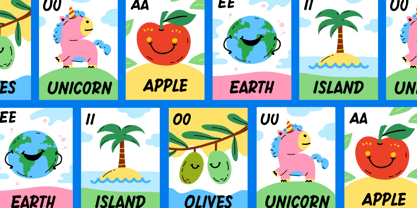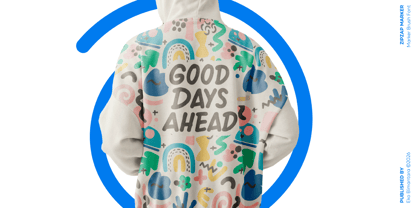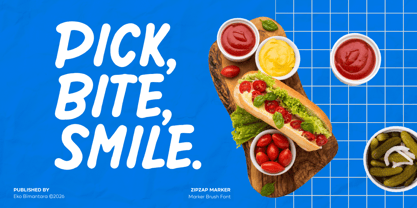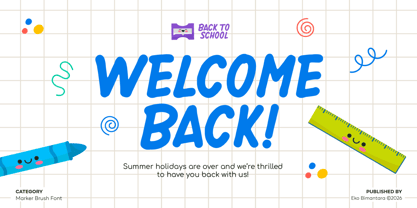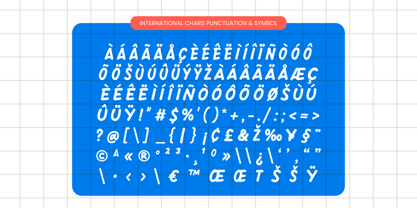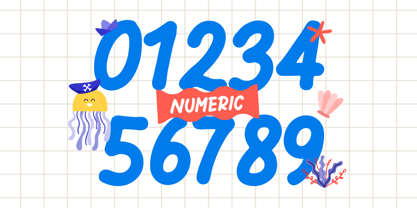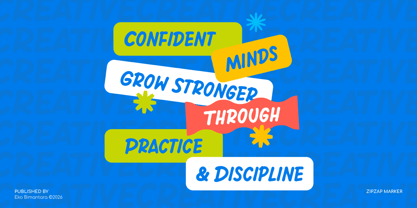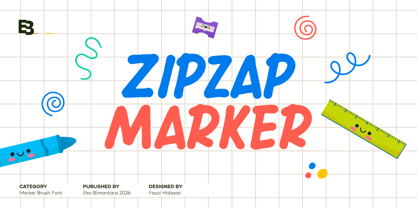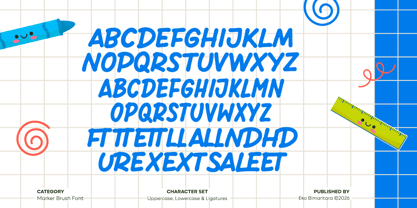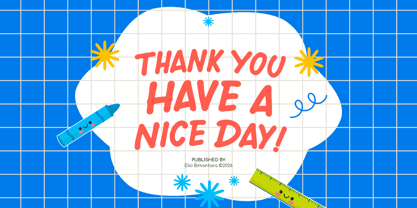
Zipzap Marker
by Eko Bimantara
The Zipzap Marker Font Family was designed by Eko Bimantara, Fauzi HIdayat and published by Eko Bimantara. Zipzap Marker contains 1 styles. More about this family
ZipZap Marker is a playful brush-style display typeface that captures the energetic spirit of hand-drawn marker lettering. With its bold strokes, slightly irregular edges, and playful rhythm, it conveys a sense of spontaneity and creativity while maintaining strong legibility. The lively character shapes and dynamic flow make it ideal for children’s content, educational materials, posters, packaging, and branding that aims to feel approachable and fun. ZipZap Marker balances expressive personality with functional clarity, offering designers a versatile typeface that brings color, movement, and a cheerful voice to any visual composition.
Designers: Eko Bimantara, Fauzi HIdayat
Foundry: Eko Bimantara
Eko Bimantara is a type designer from Indonesia. Always has an intention to creating fonts that not only look great but also perform across a wide range of mediums and also across wide range of theme. The goal is to give designers the tools to make their projects that speaks a lot with various expression. Eko Bimantara’s fonts are featured in everything from corporate identities to street art posters, and have numerous ideas and concept ready to expand for fresh fonts for years further.